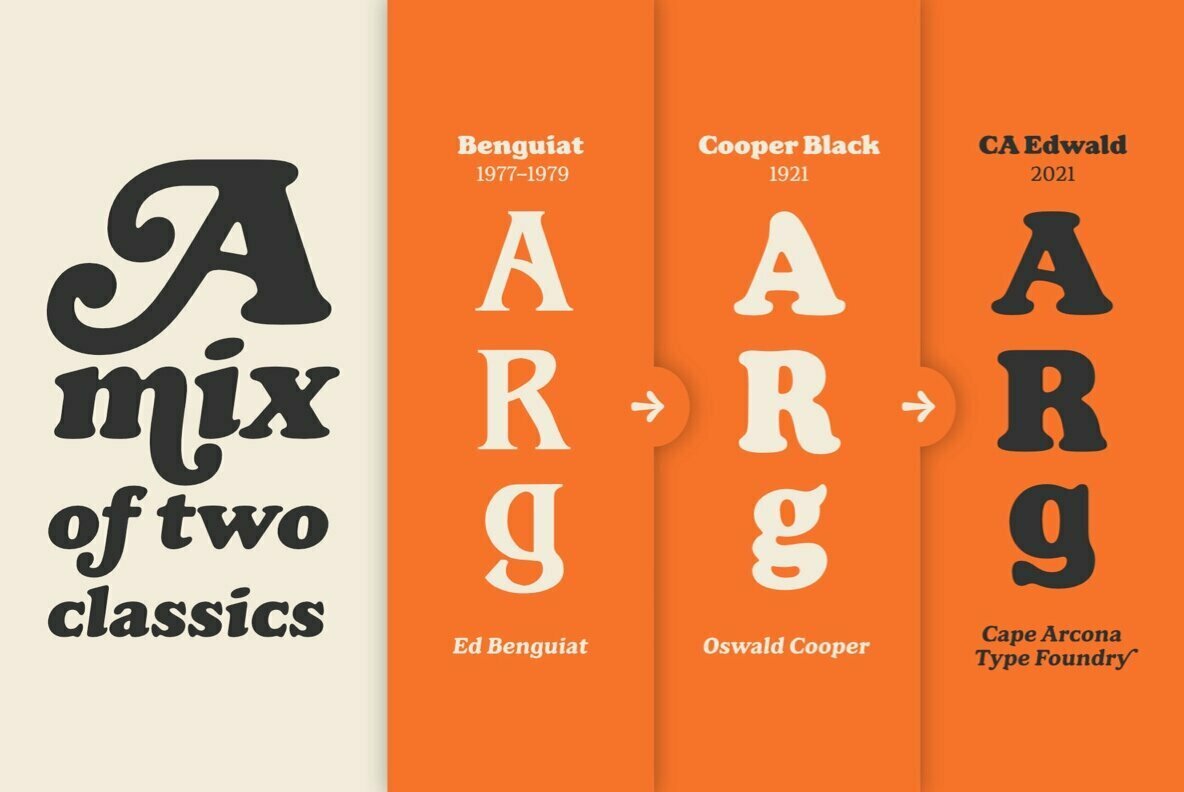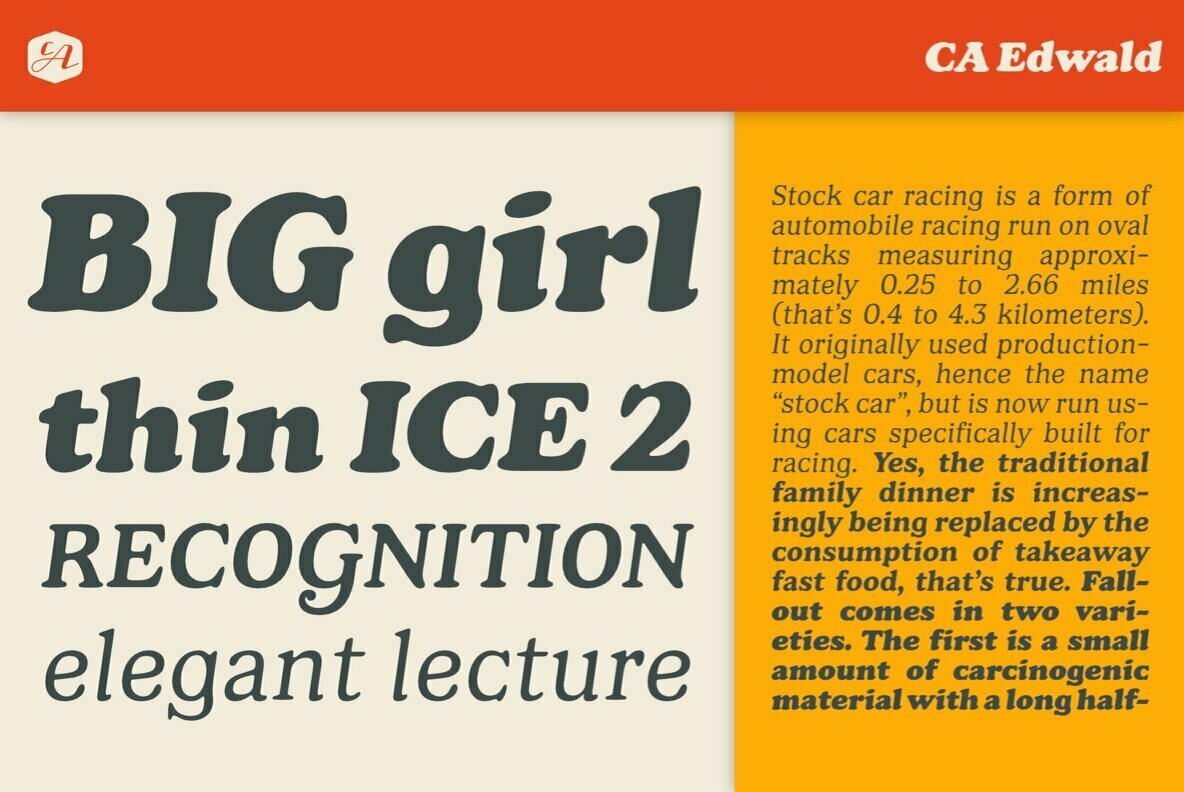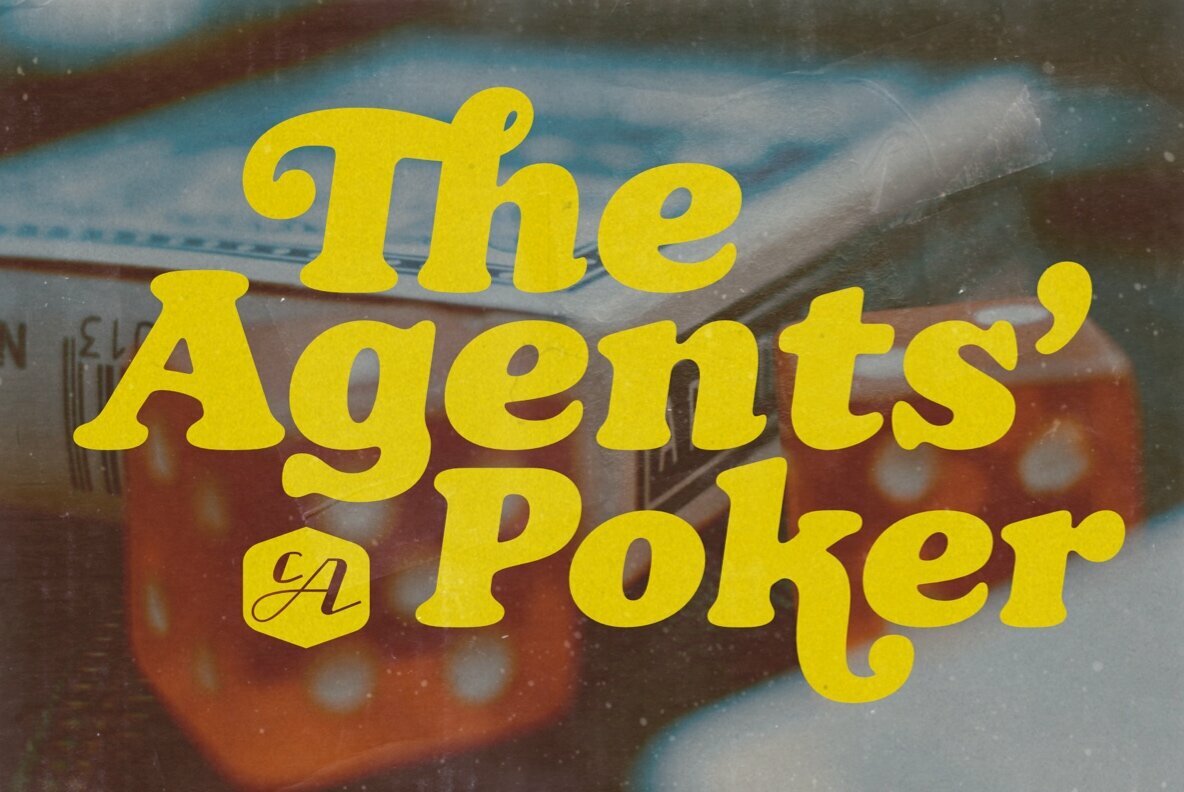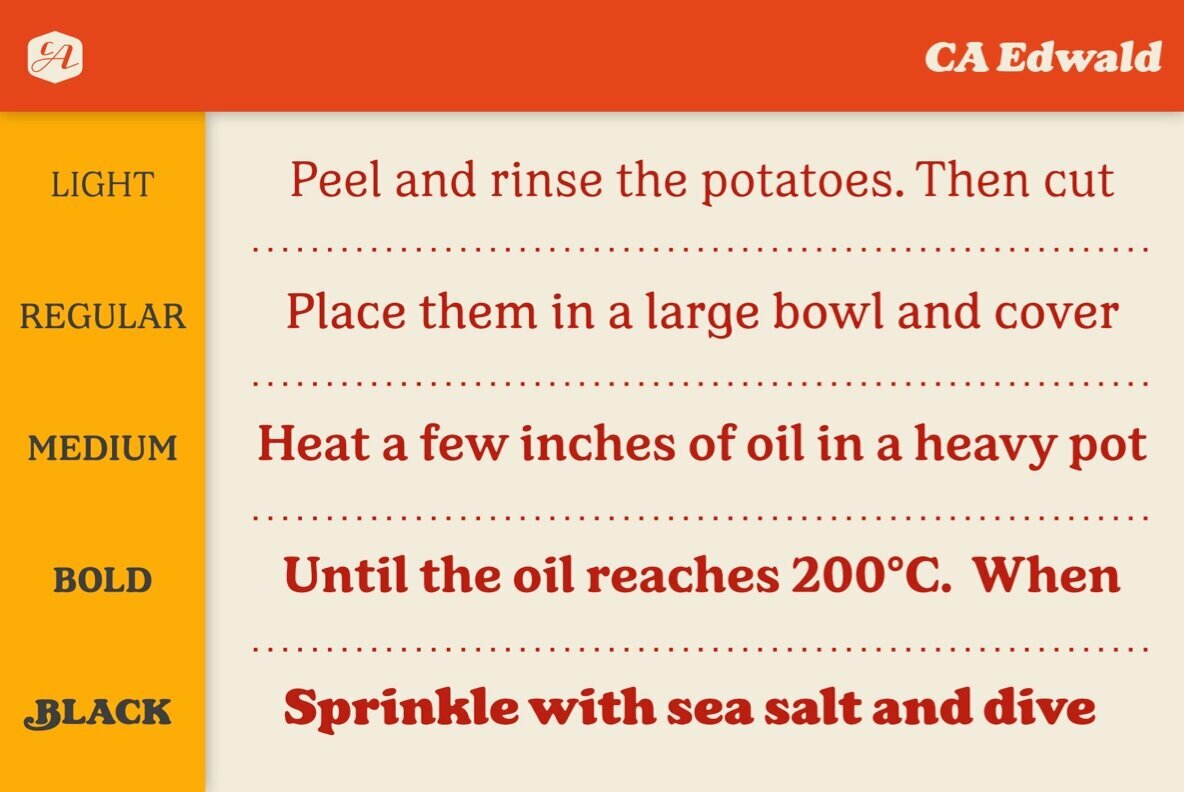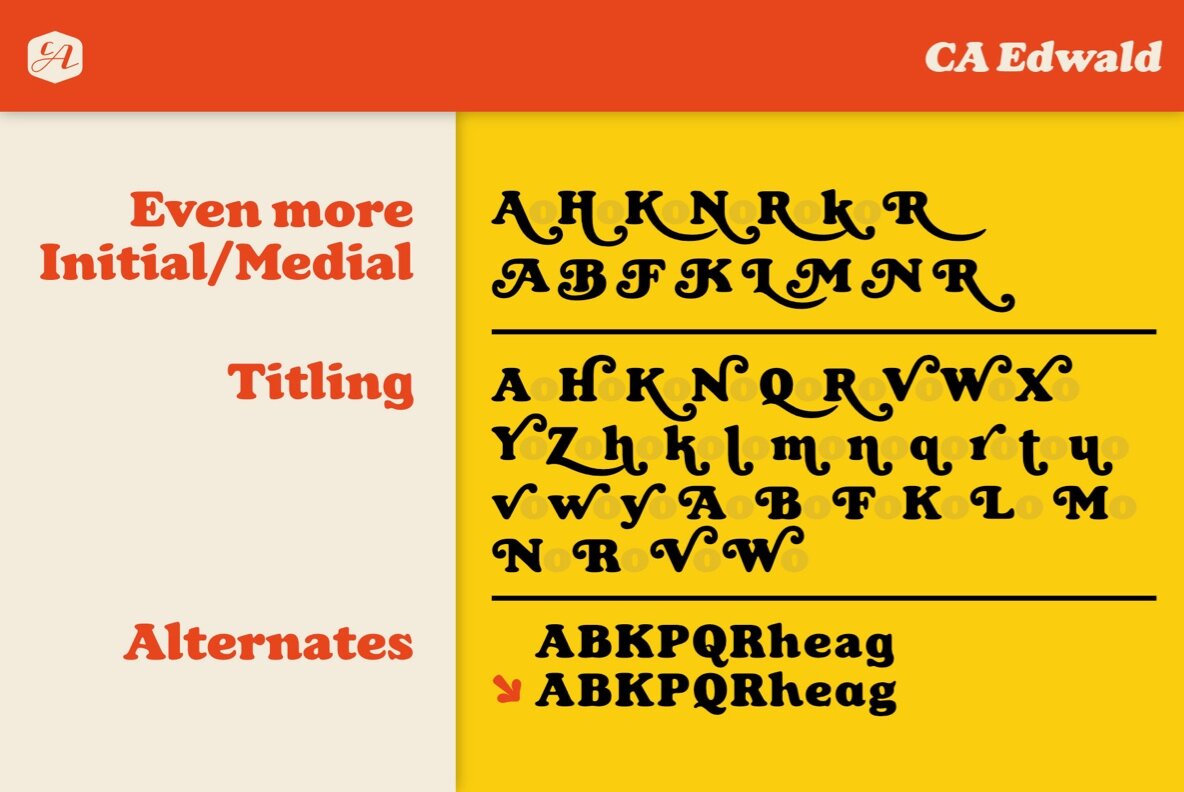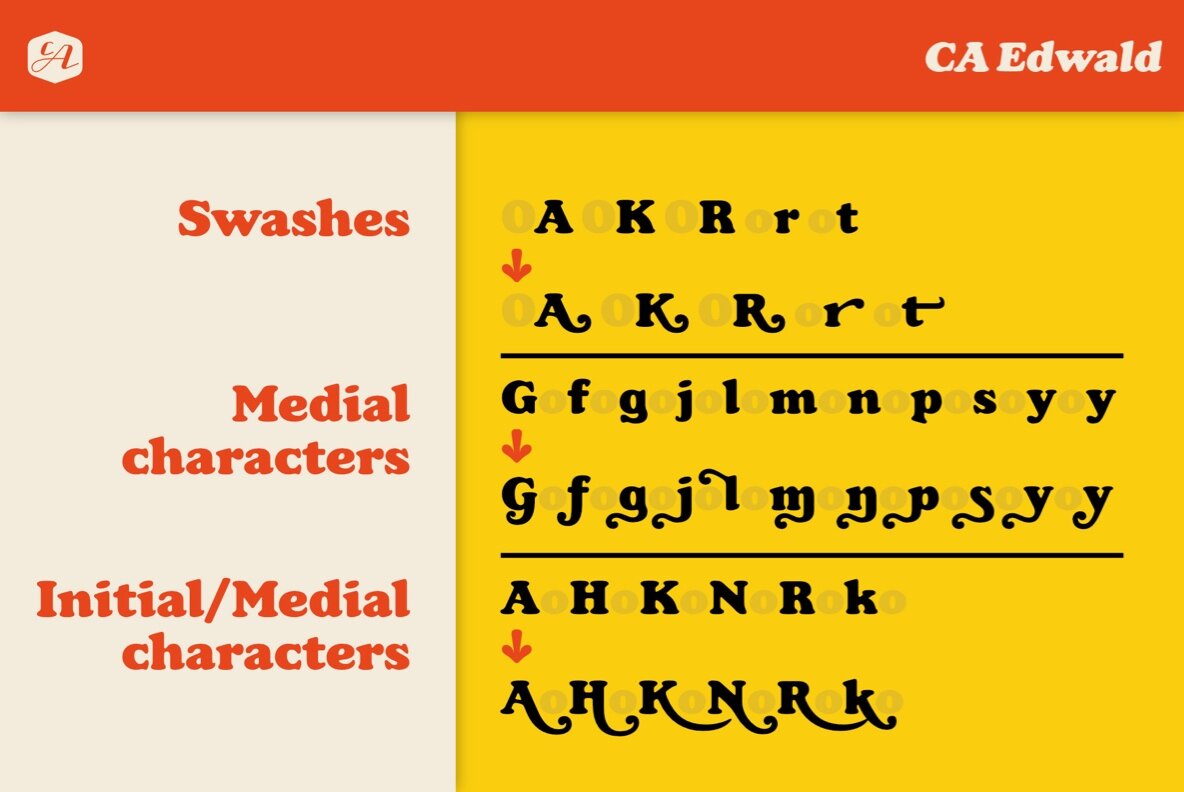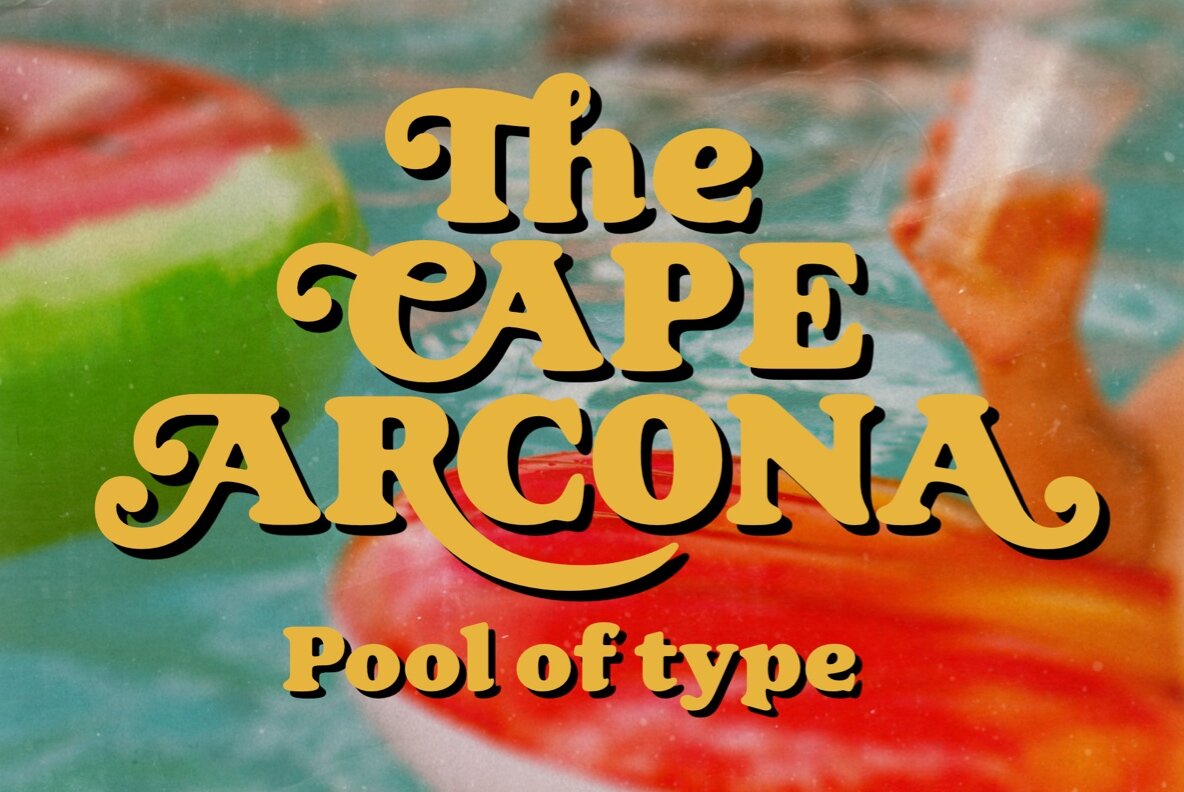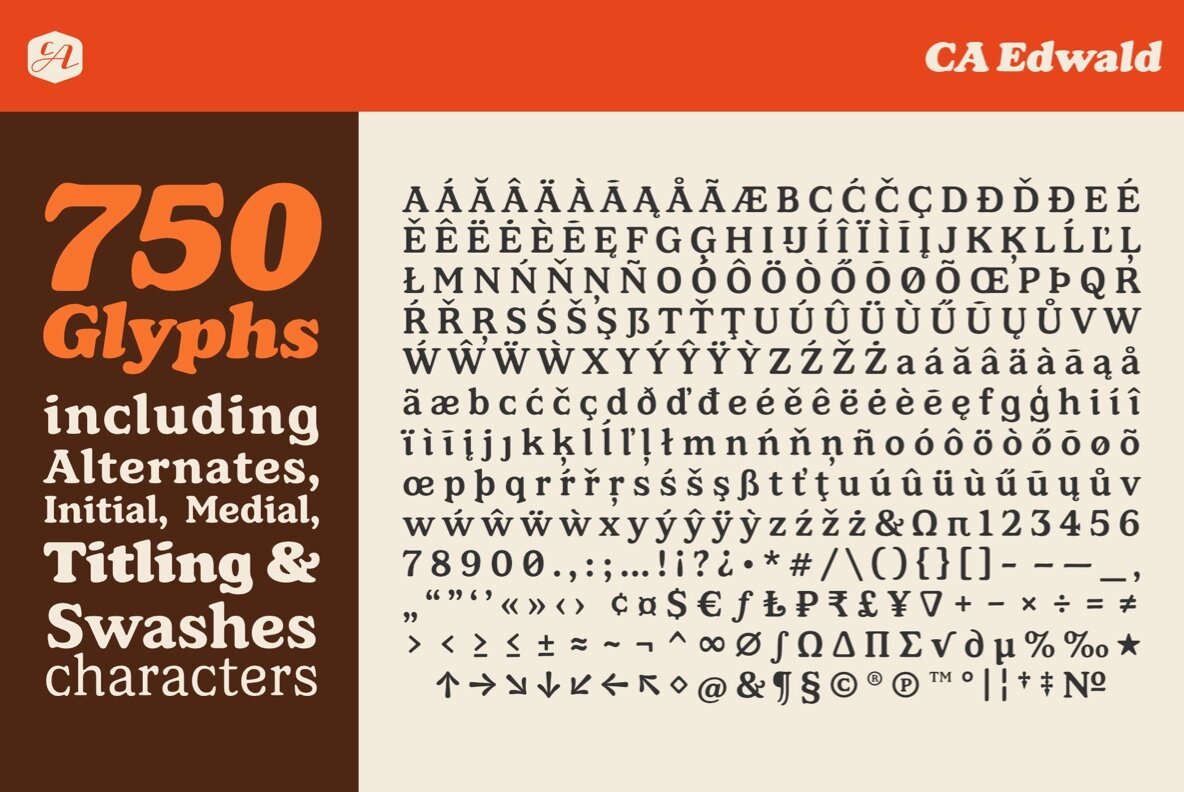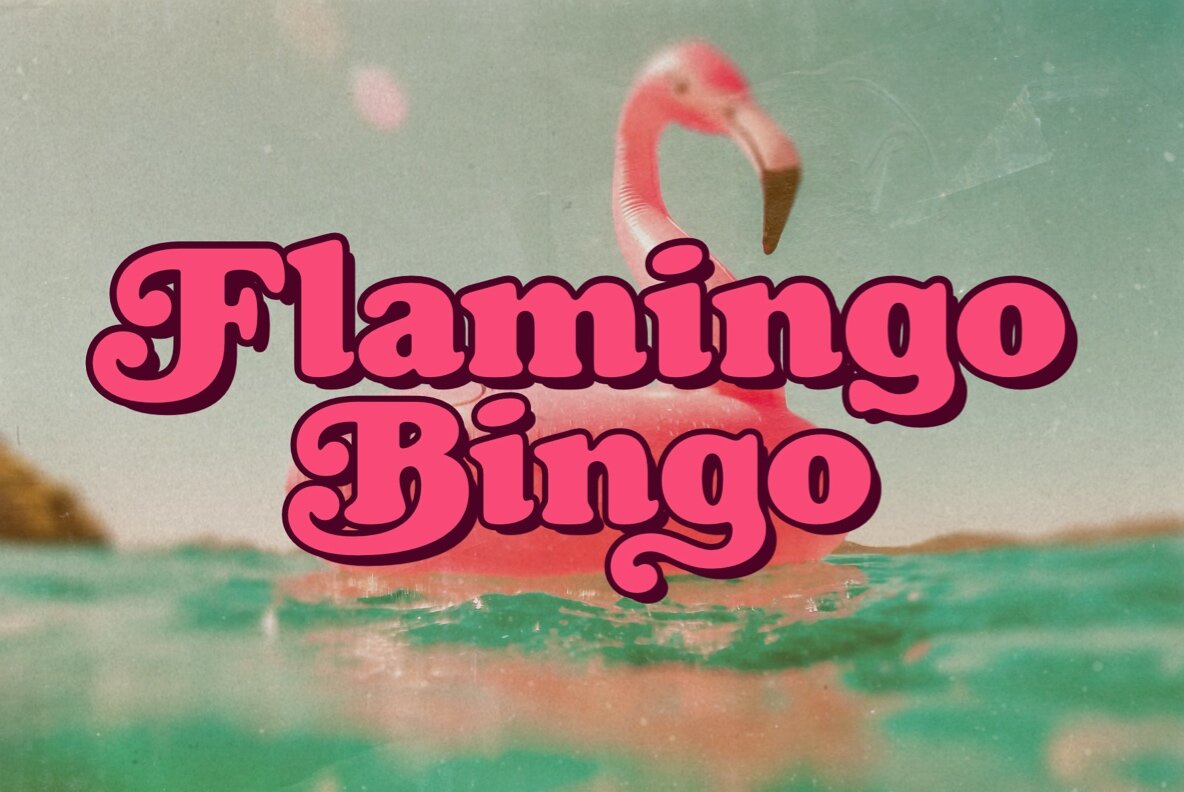
CA Edwald Font
CA Edwald by Cape Arcona Type Foundry stands as a bold testament to typographic design, encapsulating the essence of time-honored classics. With five distinct weights, this typeface merges the familiar with the unconventional, offering a choice that is both practical and visually compelling. Inspired by the legacy of Oswald Bruce Cooper and Ed Benguiat, CA Edwald is an artful union of two iconic styles.CA Edwald: A Fusion of Classic Elegance
The Cape Arcona Type Foundry was founded in Essen, Germany in 2002 by designers Thomas Schostok and Stefan Claudius. The Cape Arcona Type Foundry is an independent type foundry that produces and distributes digital typefaces. The Cape Arcona Type Foundry offers a wide range of typographic services, from origin...